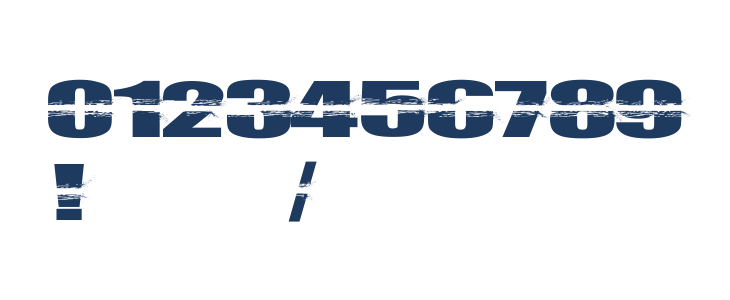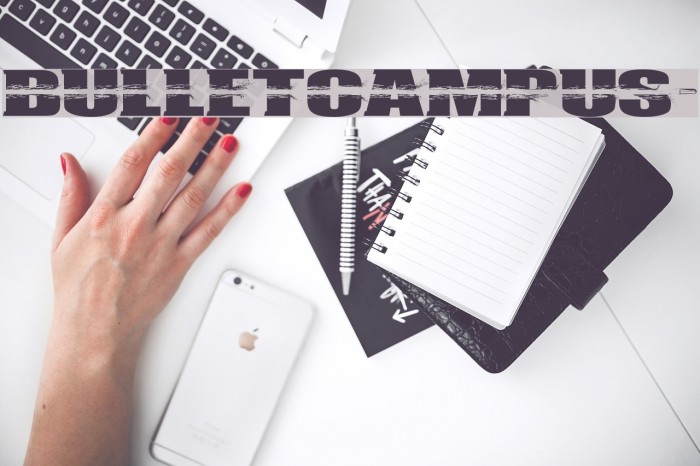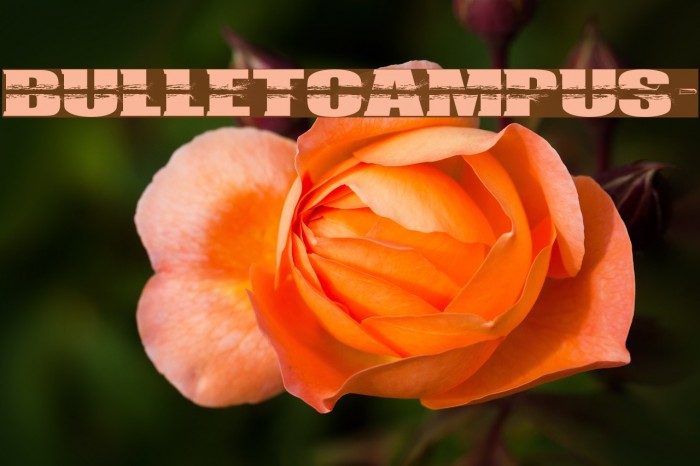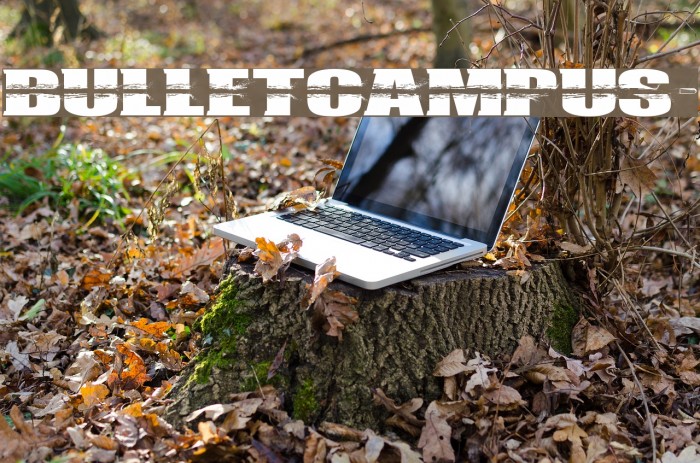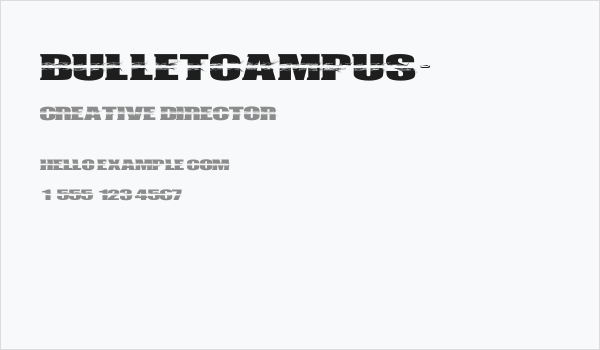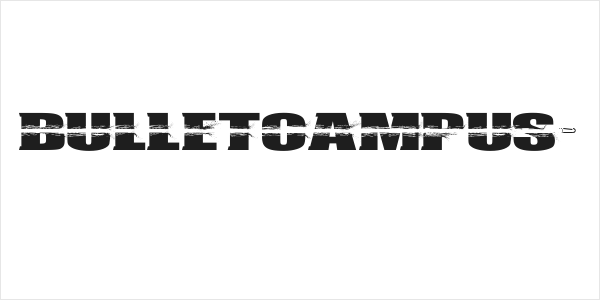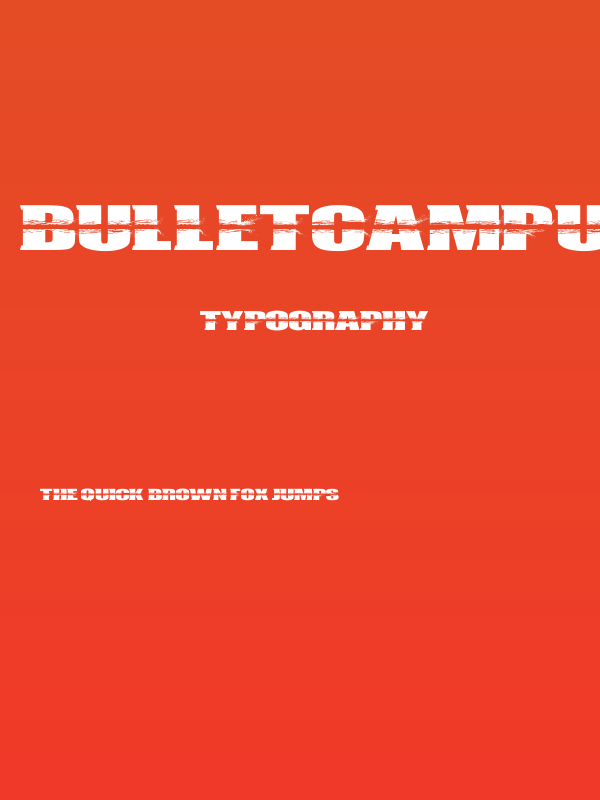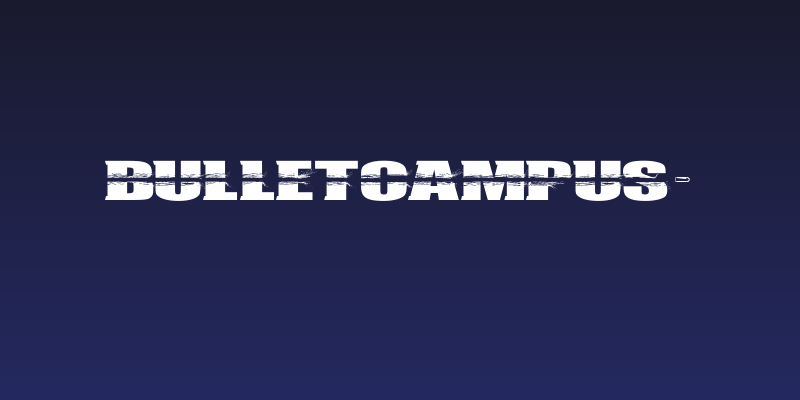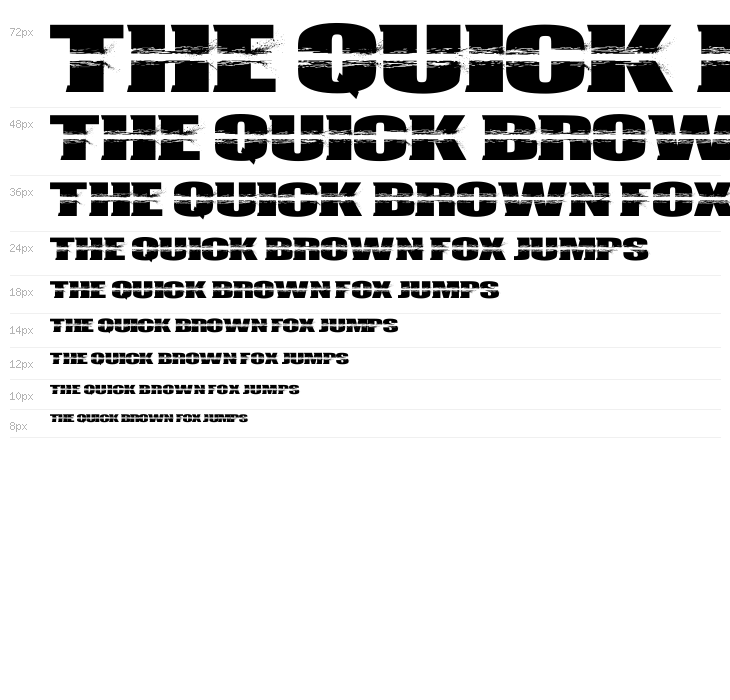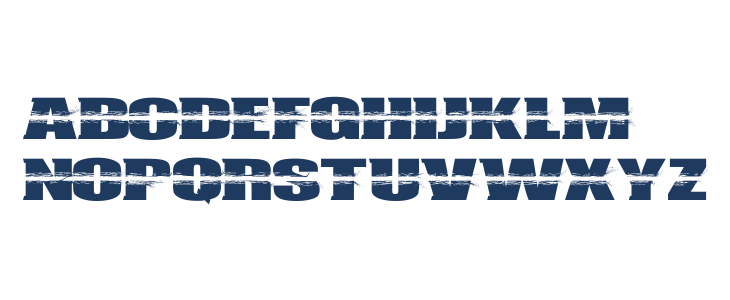
BULLETCAMPUS> Font
BULLETCAMPUS> Description
This font features a bold, distressed style with a grunge effect that runs horizontally through each character. The uppercase letters are strong and impactful, making it ideal for attention-grabbing designs. The numbers and special characters follow the same distressed pattern, adding a cohesive look to any project. The font's unique texture gives it a rugged, edgy appearance, perfect for designs that require a bold statement. Its thick strokes and high contrast make it stand out, while the distressed lines add a sense of movement and energy.
| Overall Style | Edgy, Grunge |
| Proposed Projects | Ideal for posters, album covers, urban-themed designs, and branding that requires a strong, edgy look. |